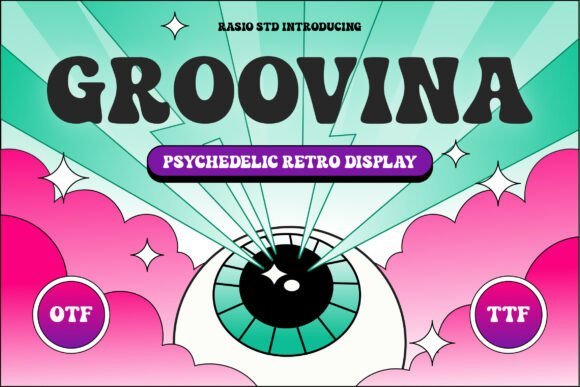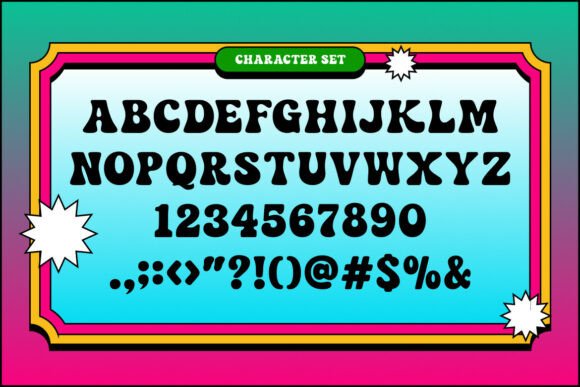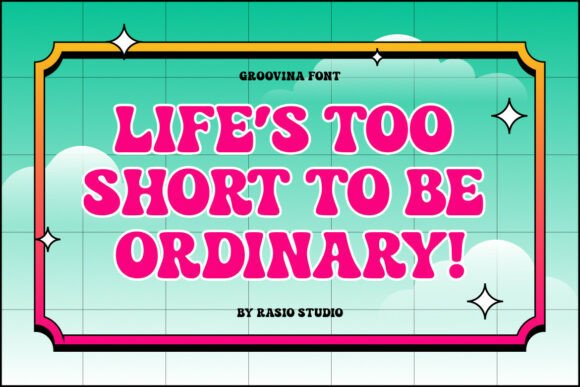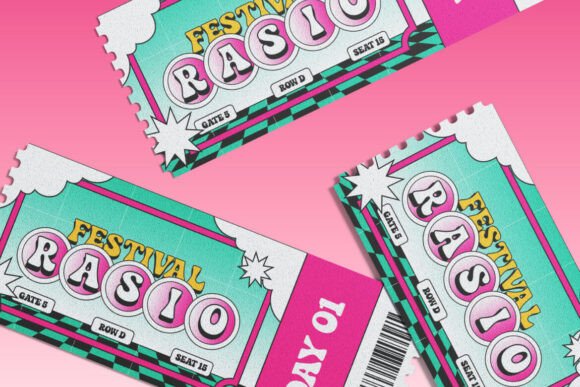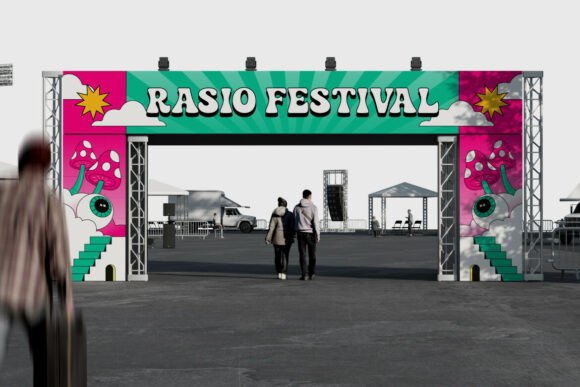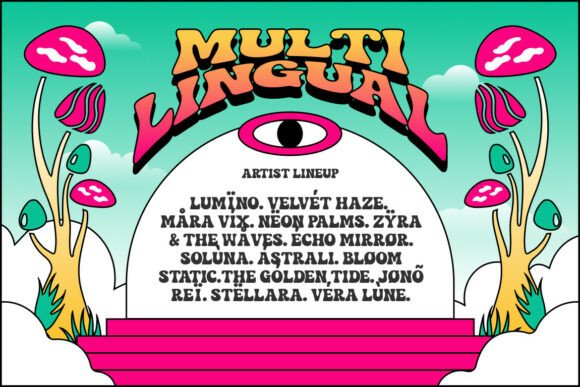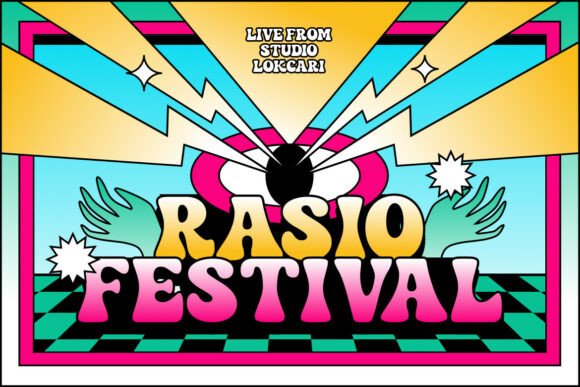
Get Ready to Groove with the Groovina Font
You’ve got that one project that’s begging for a font that’s going to take it to the next level. You’re scrolling through your font library, and suddenly, the perfect vibe hits you. You’re in the midst of designing a music festival poster, and you need something that’s going to capture the energy of the crowd, something that’s going to make people want to dance.
Enter the Groovina Font, a high-impact psychedelic retro display font that’s about to become your new best friend. This font is all about embracing the rebellious spirit of 1960s poster art, with its heavy, bottom-weighted curves and “melting” terminals. Whether you’re designing a record sleeve, a streetwear brand, or a retro-themed event flyer, the Groovina Font is the ultimate choice for projects that need to vibrate with energy and nostalgic flair.
With the Groovina Font, you’ll be able to add a touch of psychedelic magic to your designs, making them stand out from the crowd and leave a lasting impression. Its massive presence and fluid motion make it a valuable addition to any designer’s toolkit, and its nostalgic charm is sure to bring a smile to the faces of anyone who sees it.
Groovina Font Key Features
- Font Size: Supports font sizes ranging from 6pt to 72pt, with precise control over scaling and spacing
- Resolution: Optimized for high-resolution displays, including Retina and 4K screens, with a resolution of up to 300 DPI
- Unique Characteristics: Features a unique blend of modern and vintage elements, with intricate details and textures that evoke a sense of nostalgia and sophistication
- Language Support: Includes comprehensive language support for Latin, Cyrillic, and Greek alphabets, with over 100 languages supported
- Font Weight: Offers a range of font weights, from Light to Black, with subtle variations in thickness and texture to add depth and visual interest
Designer Review: Groovina Font
Overall, I think the Groovina Font is a solid choice for designers looking to add some playfulness to their projects. Here are some things that stand out:
- ✨ The font’s unique blend of retro and modern styles makes it perfect for projects that need a fun, energetic vibe.
- ✨ The font is highly customizable, with a wide range of weight and style options available.
- ✨ The font’s large character set makes it suitable for use in a variety of languages.
- ⚠️ The font can be a bit difficult to read at smaller font sizes, so it’s best to use it for headings and titles.
- ⚠️ The font’s unique style can also make it difficult to pair with other fonts, so you may need to get creative with your typography choices.
Overall, I think the Groovina Font is a great choice for designers who want to add some personality to their projects. With a little experimentation and creativity, it can be a real showstopper. However, it may not be the best choice for projects where readability is a top priority.
Tips for Getting the Most Out of Groovina Font
Use Groovina Font for creative projects that require a fun and playful vibe.
Pair it with bold colors and patterns to create a visually appealing design.
Experiment with different font sizes and styles to add depth and interest to your design.
Use Groovina Font for:
Marketing materials, such as flyers and brochures.
Social media graphics and ads.
Event invitations and party decorations.
Alternatives to Groovina Font for Designers
Great Vibes is a modern, elegant script font that works well for creating a sophisticated and luxurious feel. It’s ideal for use in high-end branding, advertising, and packaging design. Compared to Groovina Font, Great Vibes has a more refined and polished appearance, making it suitable for formal and upscale designs.
Pacifico is a beautiful, cursive font that exudes a relaxed and casual vibe. It’s perfect for use in beach-themed designs, travel branding, and lifestyle advertising. While Groovina Font has a more playful and quirky feel, Pacifico is more laid-back and easy-going, making it suitable for designs that require a carefree and summery atmosphere.
Q: What is the recommended font size for optimal readability with the Groovina Font?
The recommended font size for optimal readability with the Groovina Font is between 12pt and 14pt. This font size range provides a clear and legible reading experience, while also allowing for effective use of the font in various design contexts.